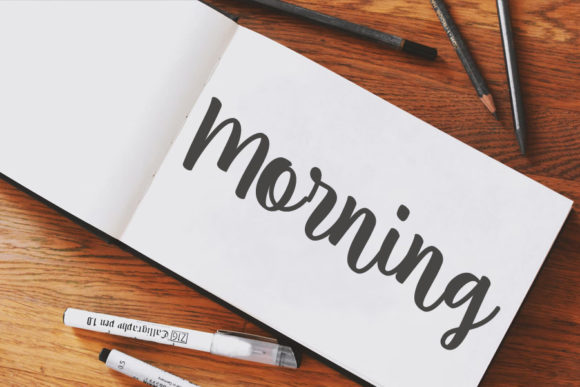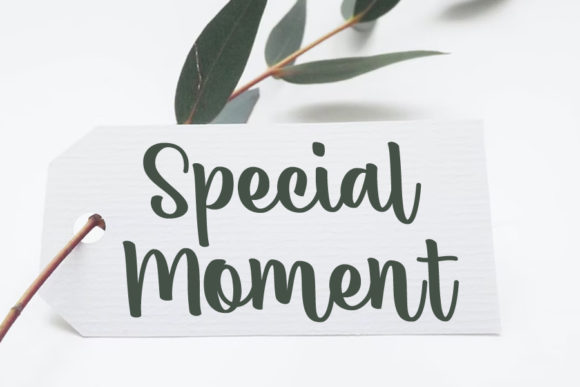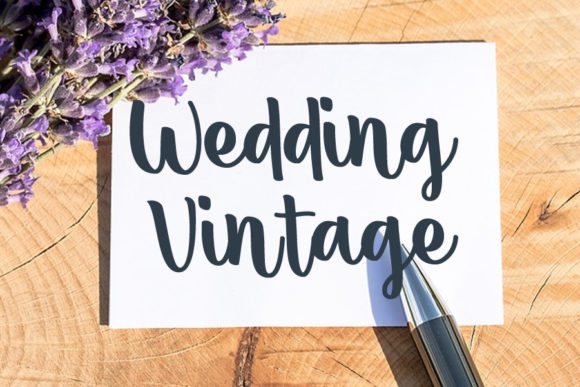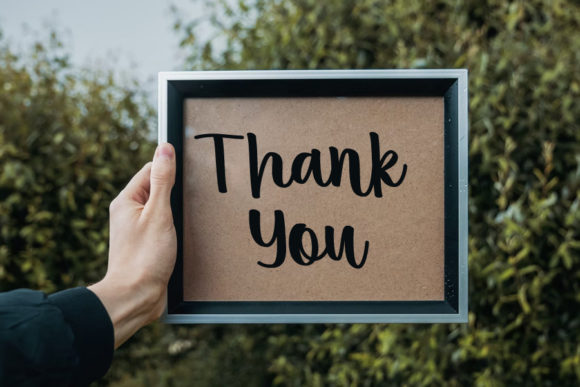
Hello Jasmine Font
About Hello Jasmine Font
Hello Jasmine is a lovely, elegant and well balanced script font. Add this romantic looking font to each of your love letters, wedding invitations or favorite design ideas, and you will be astounded by the outcome.